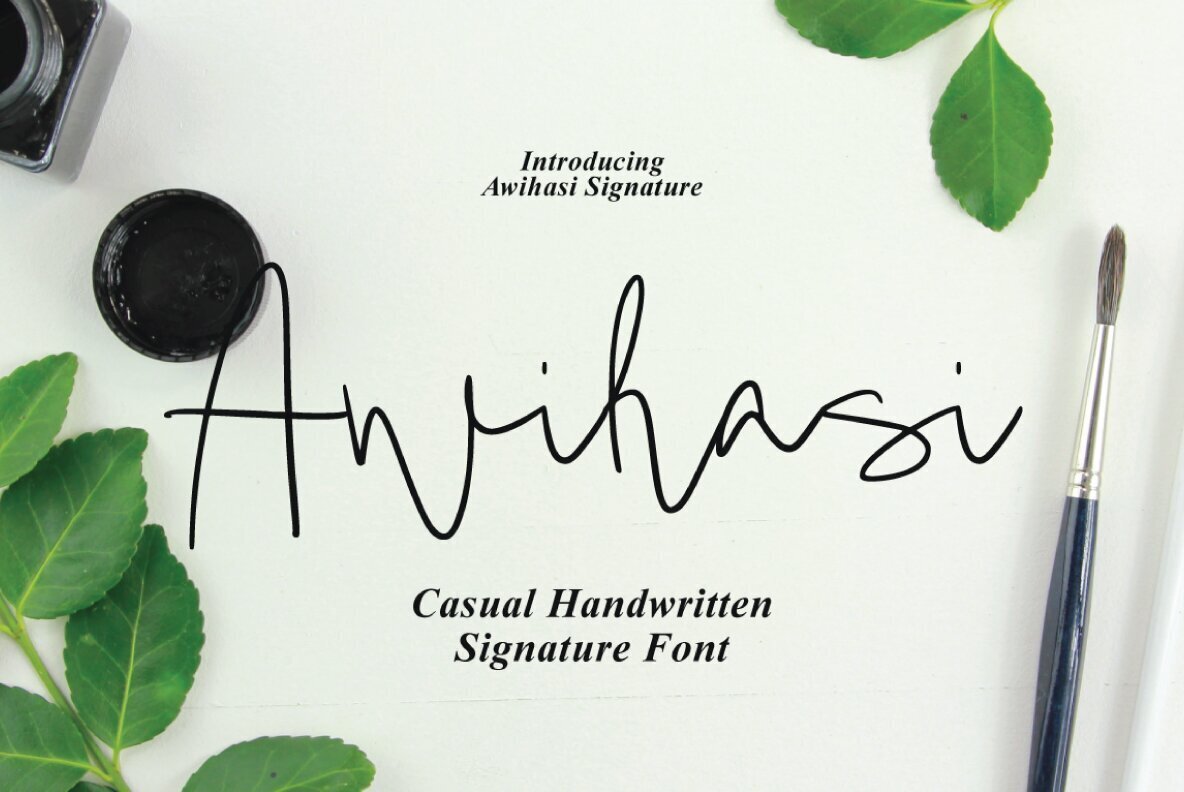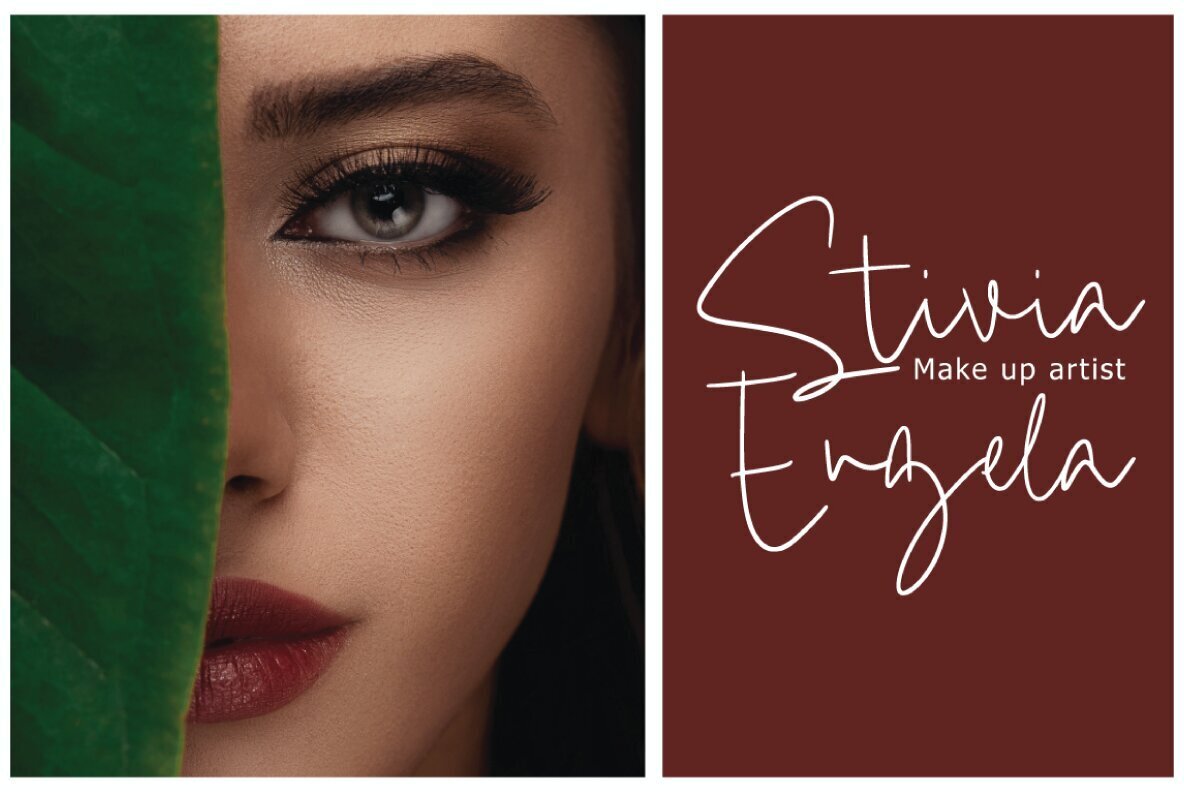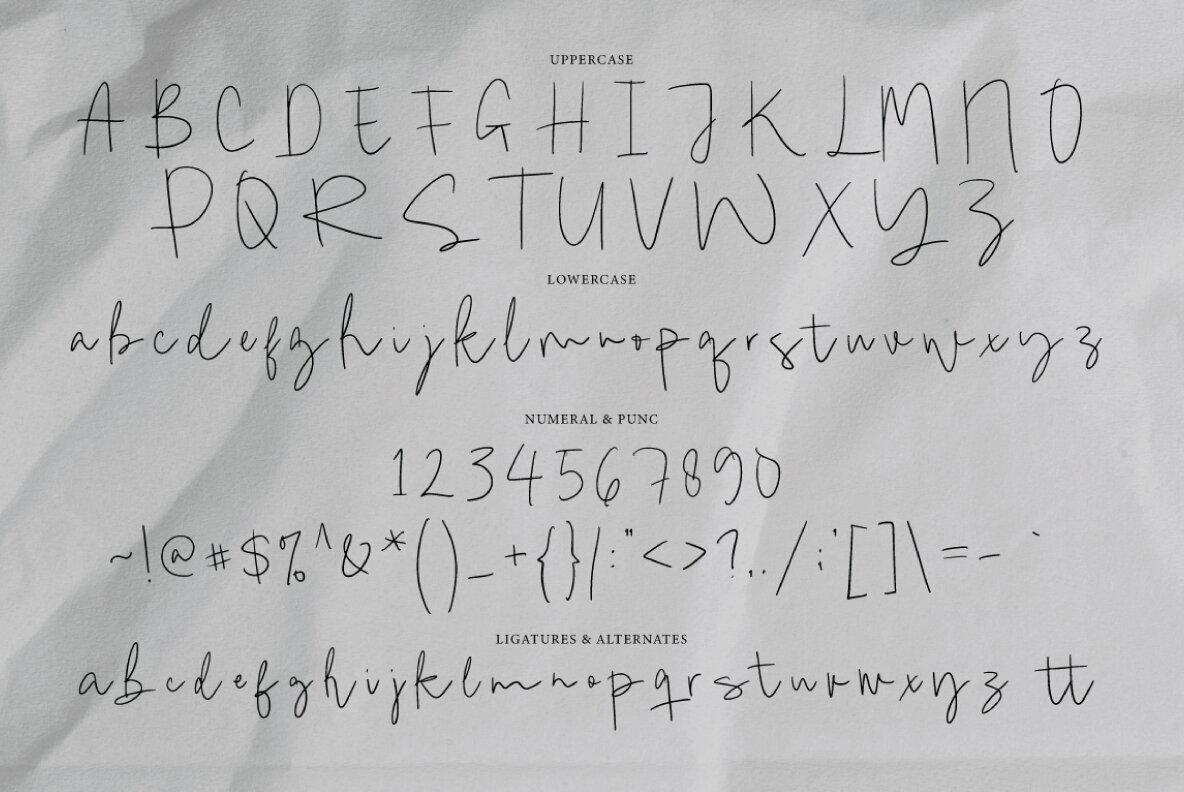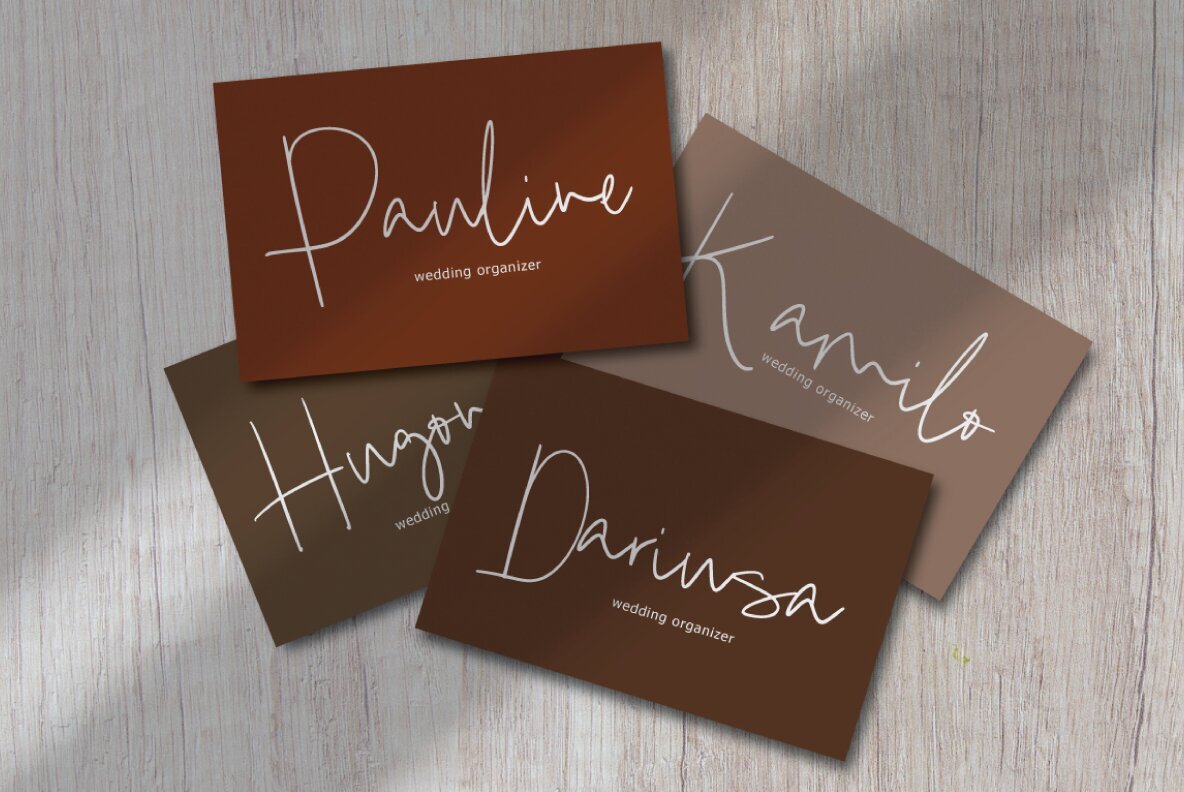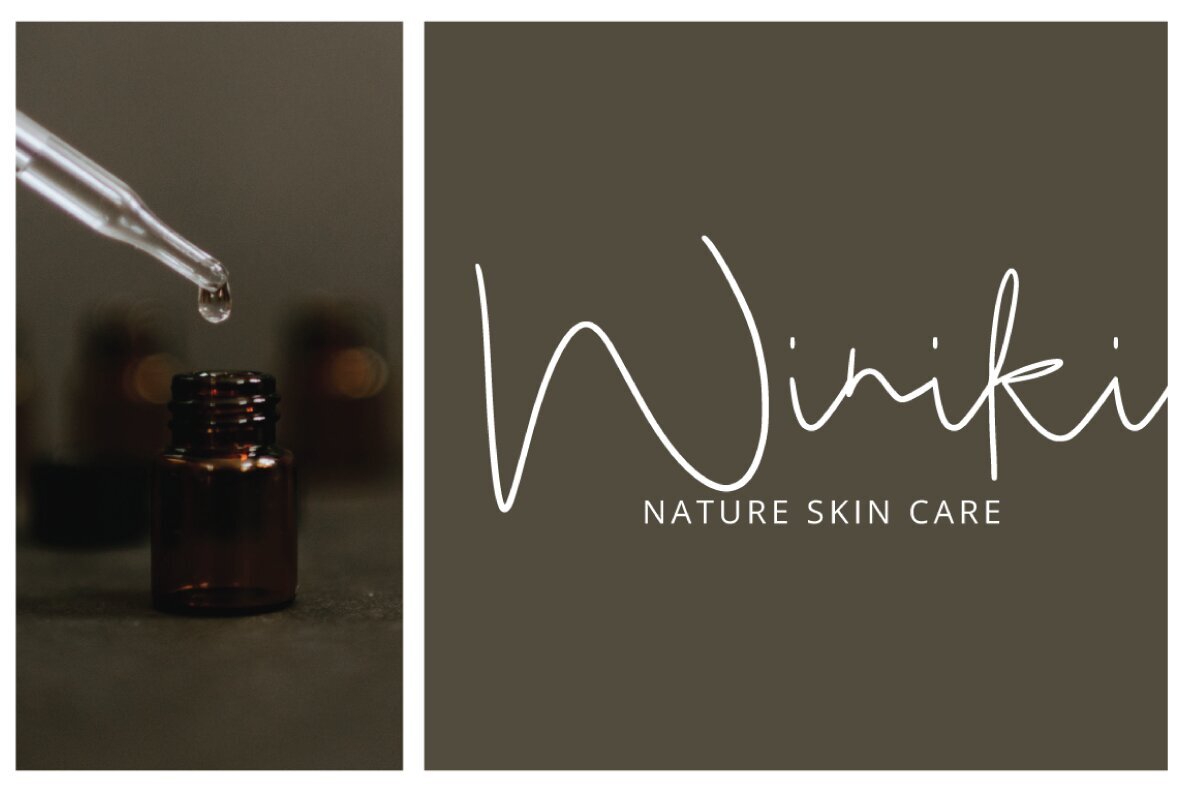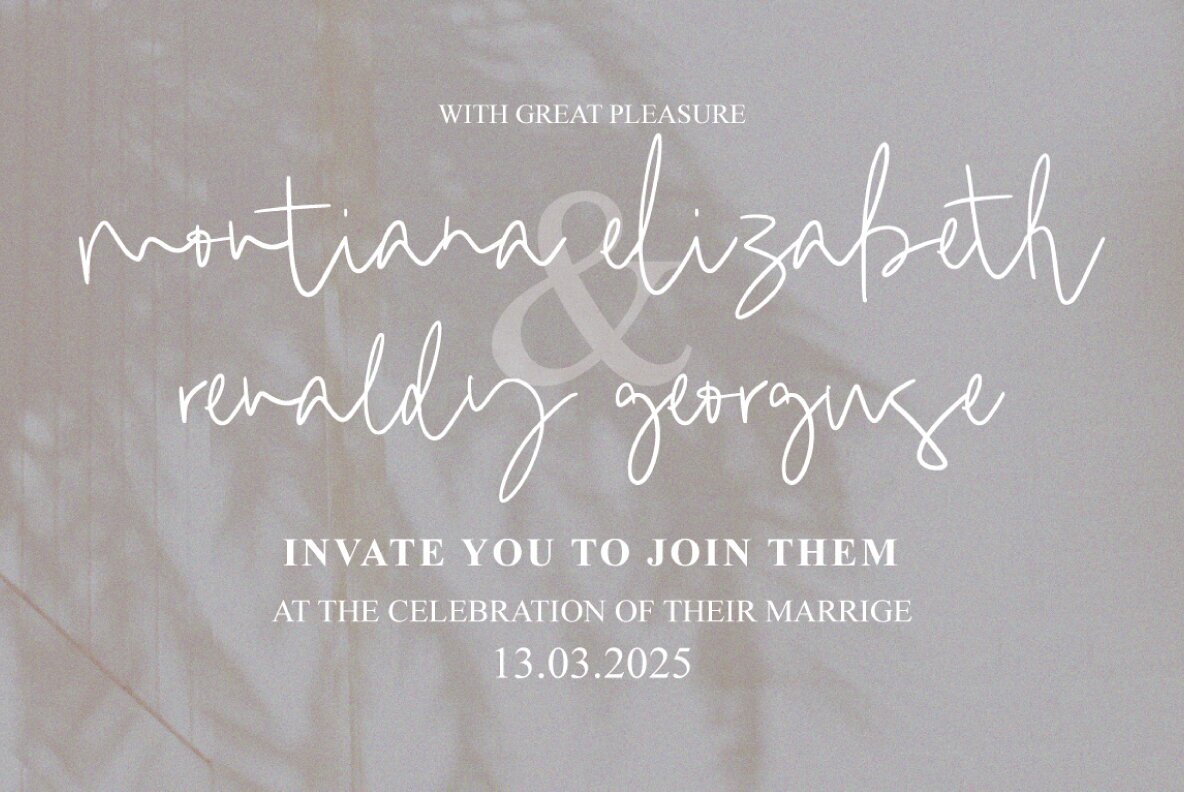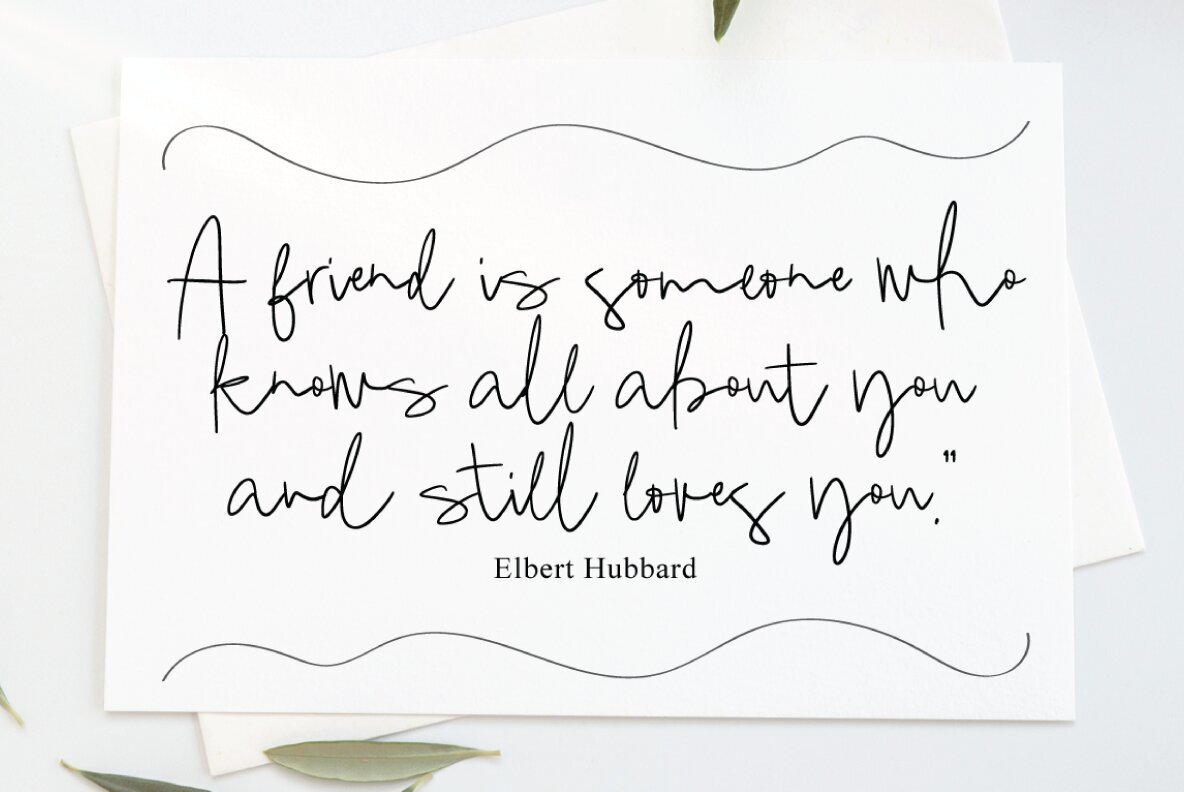
Awihasi Signature Font
Awihasi Signature Regular
Discover the elegance of Awihasi Signature, designed by Executype Studio. This exquisite font combines a handcrafted signature style with decorative characters and a dynamic baseline, making it ideal for invitations, greeting cards, branding materials, business cards, quotes, posters, and more. Awihasi Signature features over 200 glyphs, offering limitless creative possibilities. Whether you're a professional designer or a DIY enthusiast, access the alternate glyphs effortlessly with Font Book (Mac) or Character Map (Windows) if your program lacks OpenType feature support.Awihasi Signature Font